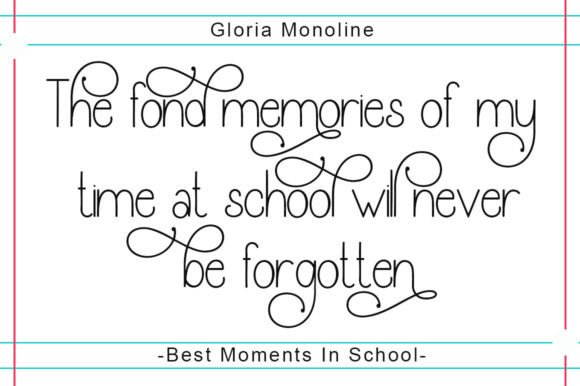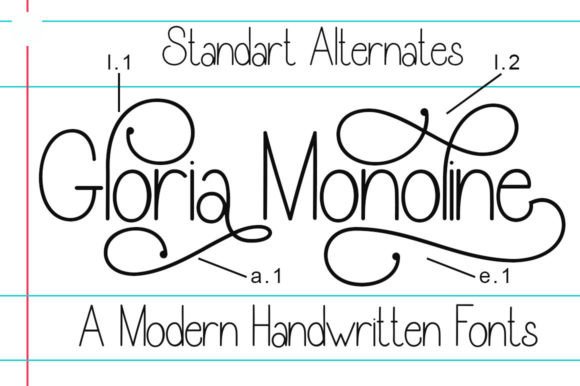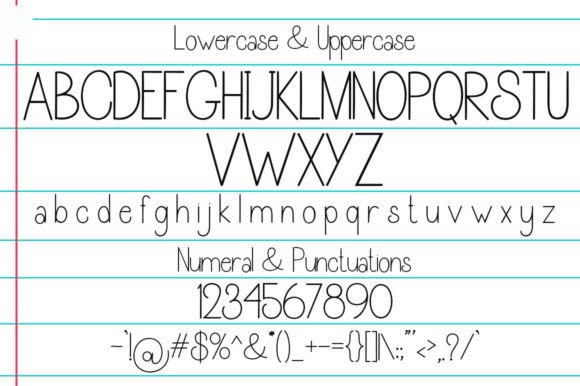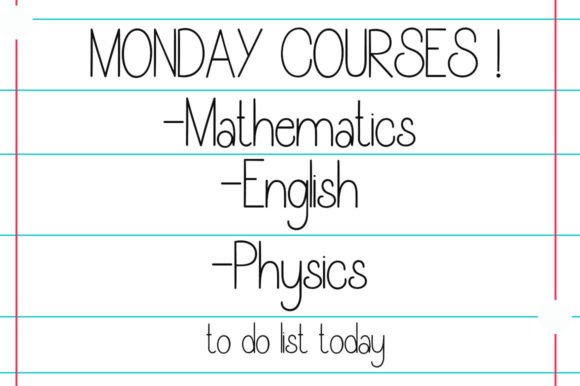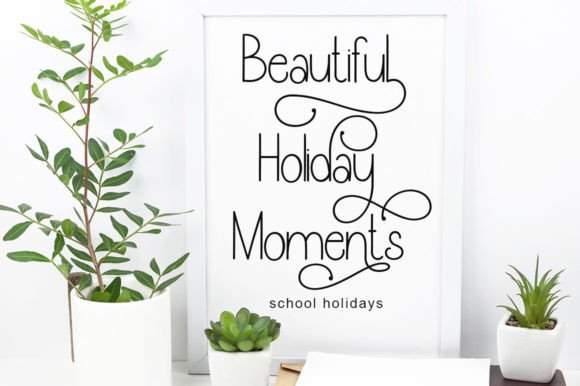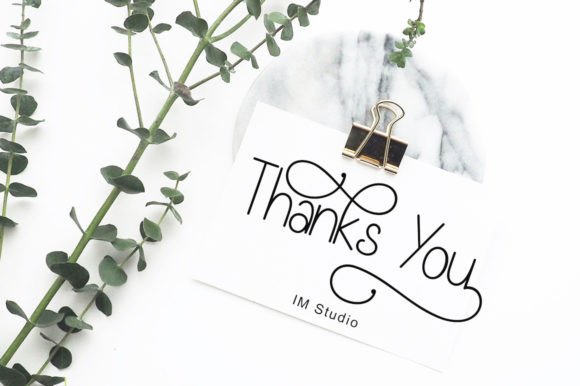
Discover the Charm of Gloria Monoline Font: Your New Go-To for Creative Projects
Are you on the hunt for a font that adds a personal touch to your crafts, digital designs, presentations, or greeting cards? Look no further than the Gloria Monoline Font. This neat and casual handwritten font is versatile, making it perfect for a wide range of creative projects. In this article, we’ll dive into the features and benefits of Gloria Monoline, and explore how it can become your favorite font for any occasion.
What is Gloria Monoline Font?
Gloria Monoline Font is a beautifully crafted handwritten font that exudes a sense of casual elegance. Its monoline design gives it a clean and modern look, making it suitable for both digital and print projects. The font’s unique charm lies in its simplicity and readability, making it perfect for designers, crafters, and DIY enthusiasts.
Key Features of Gloria Monoline Font
- Neat and Casual Design: Gloria Monoline Font boasts a neat and casual design that is perfect for adding a personal touch to your projects.
- Handwritten Style: The font’s handwritten style gives it a warm and inviting feel, making it ideal for crafts, greeting cards, and presentations.
- Monoline Design: The monoline design gives the font a clean and modern look, making it suitable for digital designs and modern craft projects.
- Versatile: Gloria Monoline Font is versatile and can be used for a wide range of projects, from crafts and digital designs to presentations and greeting cards.
Benefits of Using Gloria Monoline Font
So, why should you choose Gloria Monoline Font for your creative projects? Here are just a few benefits:
- Easy to Read: The font’s clean and simple design makes it easy to read, even at small sizes.
- Perfect for Crafts: Gloria Monoline Font is ideal for craft projects, such as scrapbooking, card making, and DIY decor.
- Great for Digital Designs: The font’s modern look makes it perfect for digital designs, such as social media graphics, blog posts, and presentations.
- Adds a Personal Touch: The font’s handwritten style adds a personal touch to your projects, making them stand out from the crowd.
How to Use Gloria Monoline Font in Your Projects
Using Gloria Monoline Font in your projects is easy. Here are a few ideas to get you started:
- Crafts: Use Gloria Monoline Font to add a personal touch to your scrapbooking, card making, and DIY decor projects.
- Digital Designs: Use the font to create social media graphics, blog posts, and presentations that stand out from the crowd.
- Greeting Cards: Use Gloria Monoline Font to create beautiful and personalized greeting cards for any occasion.
- Presentations: Use the font to add a touch of elegance to your presentations and make them more engaging.
| Font Name | Gloria Monoline Font |
| Author | IM Studio |
In conclusion, Gloria Monoline Font is a versatile and charming font that is perfect for a wide range of creative projects. Its neat and casual design, handwritten style, and monoline look make it a great addition to any designer’s or crafter’s toolkit. Whether you’re working on crafts, digital designs, presentations, or greeting cards, Gloria Monoline Font has the potential to become your new go-to font. So why not give it a try and see the difference it can make in your projects?